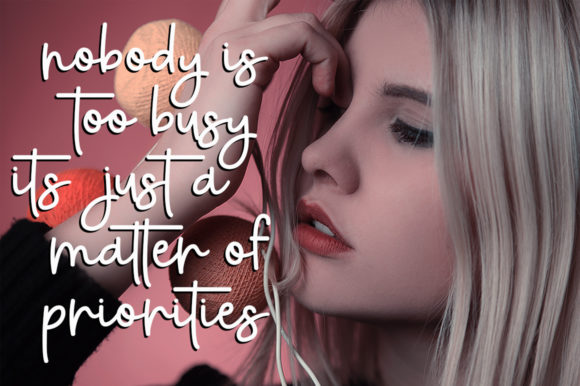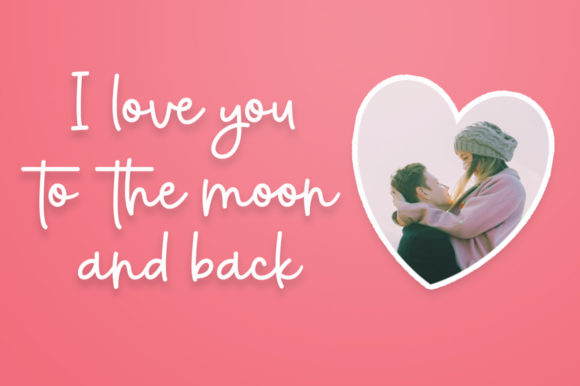
Everything Script Font
db-ku.com - Script & Handwritten -- The Everything Script is a modern handwritten font. This font allows you to create beautiful hand-made typography in an instant.